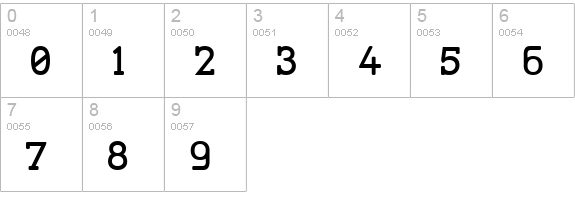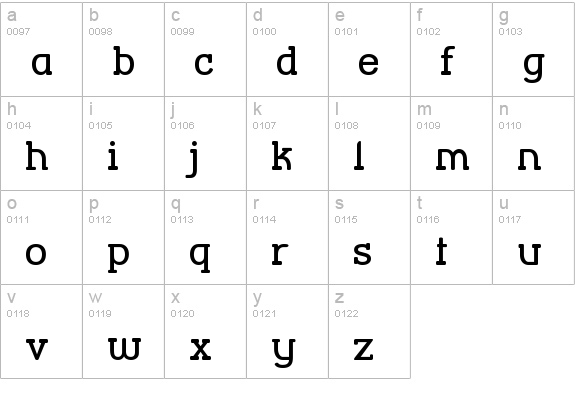
Street Corner Slab SemiBold Font Details
Street Corner Slab SemiBold is a sub-bold, structured variant in the Street typeface family \xE2\x80\x94 well suited to sub-headlines and emphasised passages.
Introducing Street Corner Slab SemiBold font, a modern and versatile typeface that effortlessly combines a bold and edgy aesthetic with a touch of sophistication. This beautifully crafted font is perfect for making a statement in your designs, whether it be for branding, advertising, posters, or any other creative project. The unique characteristics of Street Corner Slab SemiBold font make it stand out from the crowd, with its strong, slab serif design and clean lines that exude confidence and style. Whether you're looking to add a touch of urban flair or a modern twist to your designs, this font has got you covered. And the best part? Street Corner Slab SemiBold font is available for free download at FontsMarket.com. So go ahead and elevate your designs with this stunning typeface that is sure to make a lasting impression.